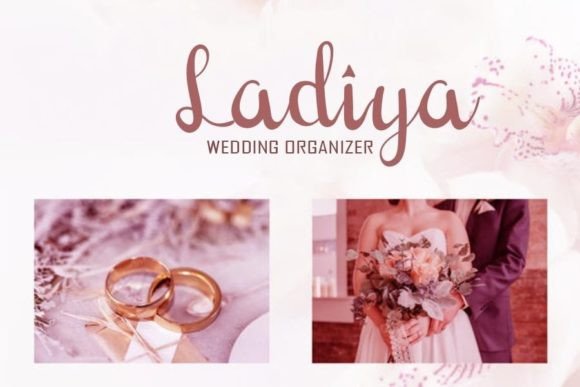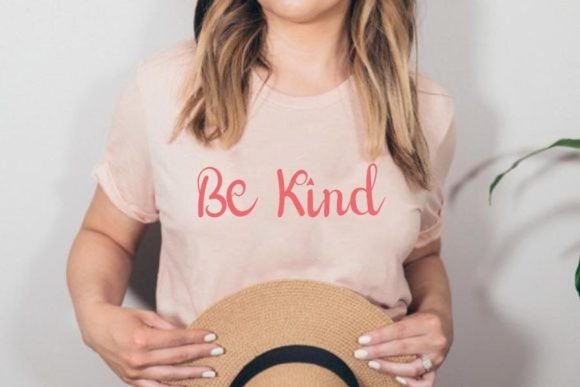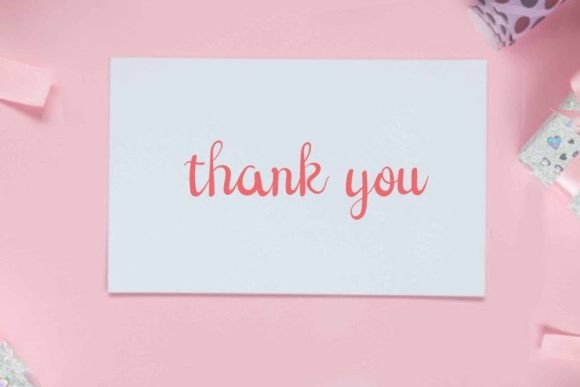
The Perfect Match for Your Design Dreams
Have you ever stared at a blank page, trying to conjure up the perfect design, but nothing seems to come together? You know, that moment when inspiration is just out of reach, but you can feel it lurking somewhere in the back of your mind. It’s a frustrating yet familiar feeling, and it’s exactly what makes discovering a new font so thrilling.
Enter the charming Brides Font, a handwritten font that’s as fun as it is friendly. Designed to bring a unique touch to any design project, Brides Font is the perfect partner in crime for creatives looking to turn their ideas into reality. With its whimsical charm and playful feel, this font is sure to add a personal touch to your designs, making them truly stand out from the crowd.
Whether you’re a seasoned designer or just starting out, the Brides Font is a valuable addition to your toolkit. Its versatility and charm make it the perfect choice for a wide range of projects, from wedding invitations to blog posts and beyond.
Brides Font Key Features
• Font Family: Brides Font is a script font, ideal for wedding invitations, stationery, and other special occasions.
• Unique Characteristics: Brides Font features elegant, flowing lines and delicate flourishes, making it perfect for creating a romantic and sophisticated look.
Brides Font Review
I’ve had the chance to work with Brides Font on a few projects, and I must say it’s a versatile typeface with some great features. ✨ One of the things I appreciate is its elegant and refined look, making it perfect for wedding invitations, stationery, and other formal designs. The font’s classic feel is timeless, and it’s great for creating a sense of sophistication and luxury.
Another advantage of Brides Font is its wide range of styles and weights, which allows for a lot of creative freedom. ✨ I’ve used it for headings, body text, and even for decorative elements, and it always looks great. The font is also highly customizable, with plenty of options for tweaking the layout and spacing.
However, there are a few limitations to Brides Font that I’ve encountered. ⚠️ One of the main issues is that it can be a bit too ornate for certain projects, which may make it difficult to read at smaller font sizes. Additionally, the font’s classic style can sometimes feel a bit too predictable or overused.
• Limited legibility at smaller font sizes
• Predictable and overused classic style
Overall, I think Brides Font is a solid choice for designers looking to create elegant and sophisticated designs. While it may have some limitations, its versatility and customization options make it a great addition to any font collection. With some careful planning and attention to detail, you can create stunning designs that really showcase the beauty of this typeface.
Bride’s Font is commonly used in wedding invitations, save-the-dates, and other wedding-related designs. To get the most out of it, try pairing it with elegant graphics and subtle color schemes. Experiment with different font sizes and styles to create visual interest.